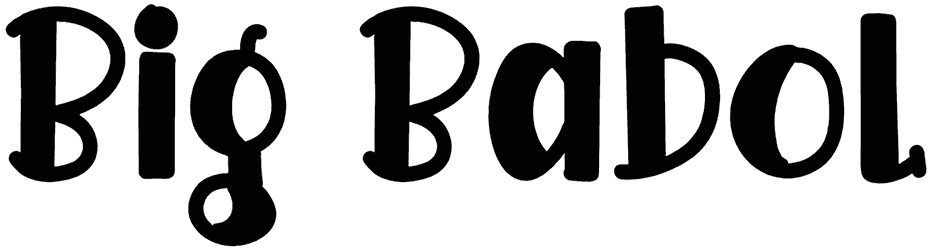
Big Babol Font
Instilling a sense of contrast would be a brilliant way to persuade the audience to follow your graphic content, including illustrations, storybook covers, digital banners, or product packaging. In this regard, a wonderful cartoon font, the same as Big Babol, would be really helpful. Due to its rounded and oblique characters, it can share a sense of imbalance, jauntiness, and playfulness with the customers.